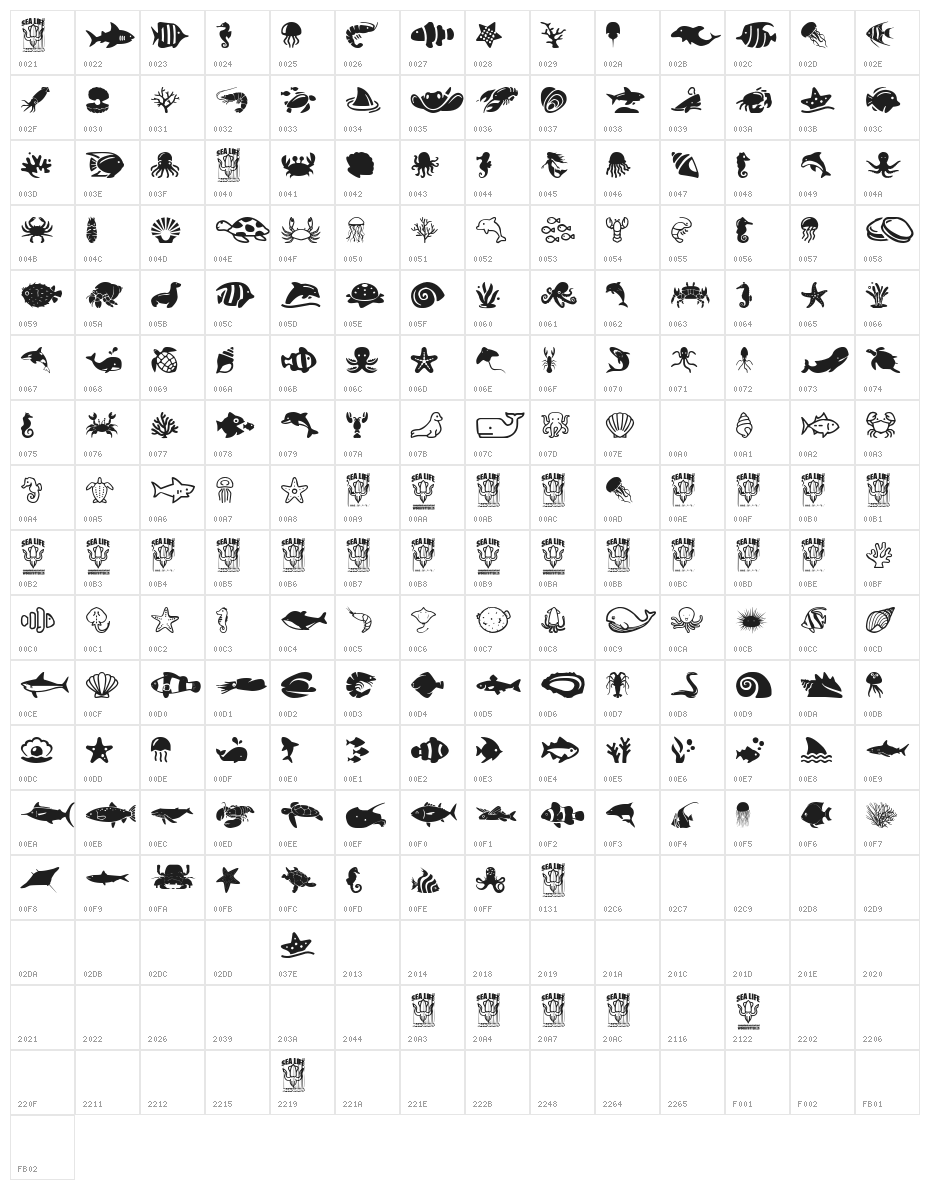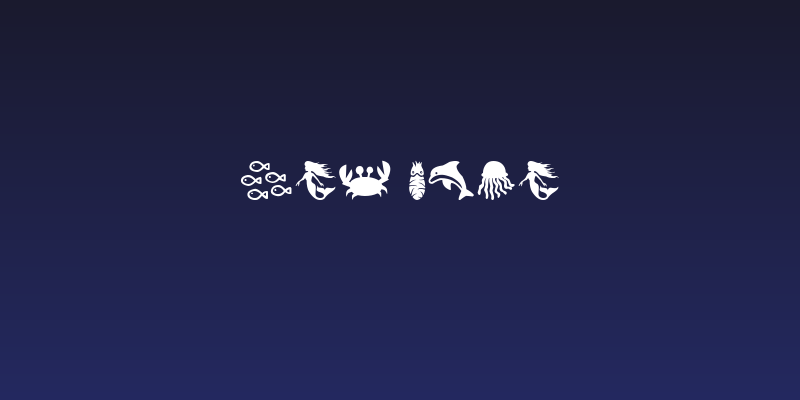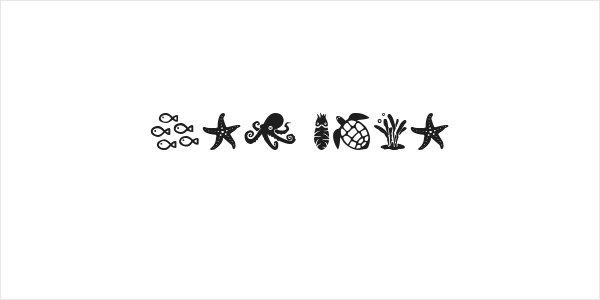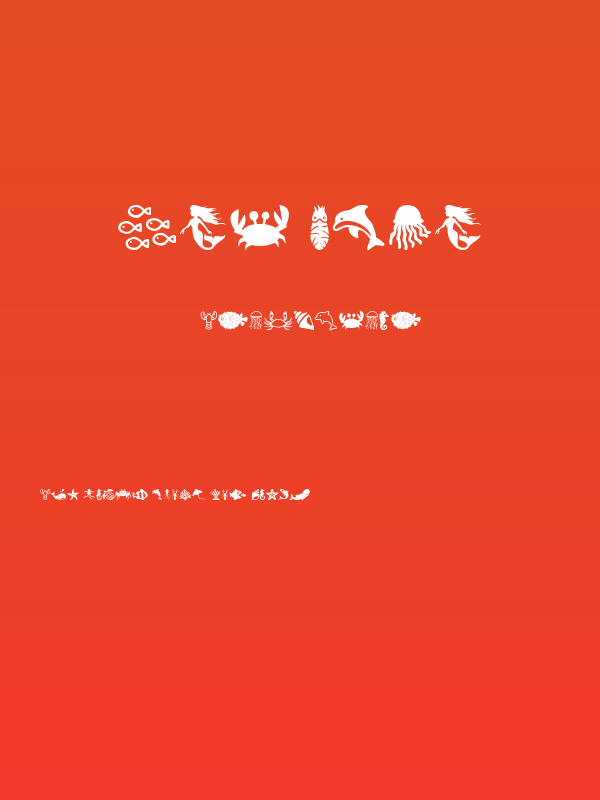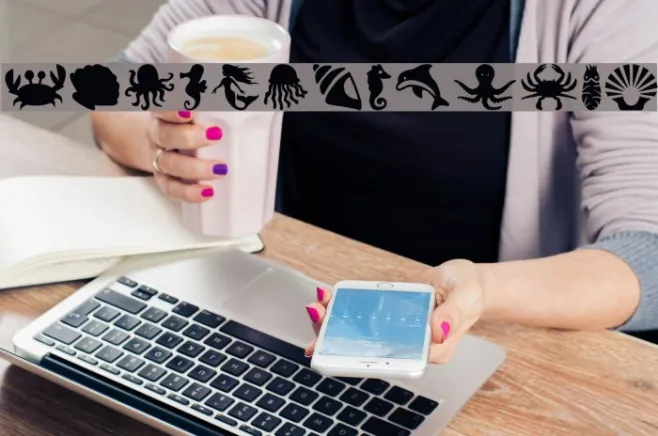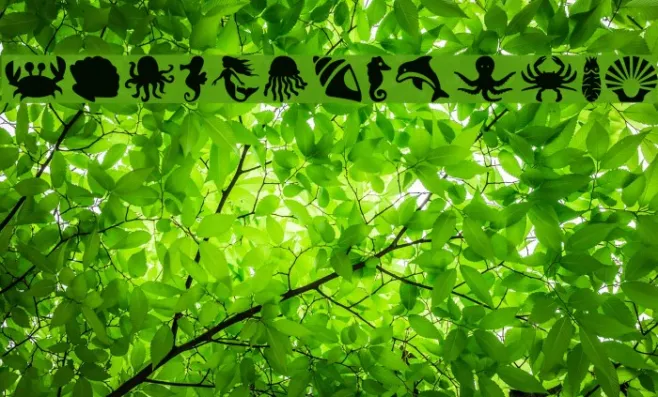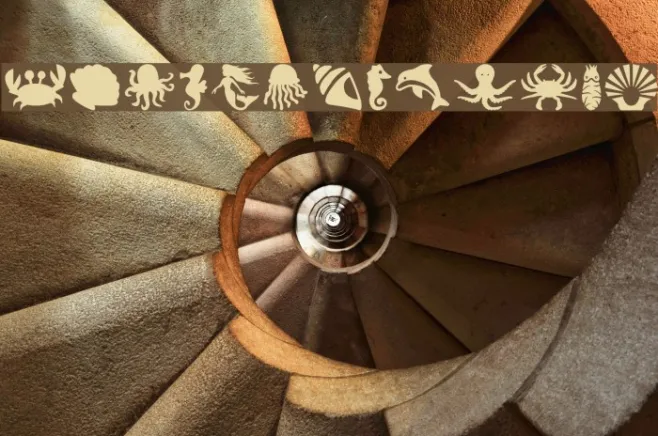
Sea Life Font
Sea Life Description
A playful and decorative dingbat font featuring a wide variety of sea life silhouettes, including fish, crustaceans, mollusks, marine mammals, and aquatic plants. Each character is represented by a unique, bold, and easily recognizable marine-themed icon, rendered in solid black with simple, clean lines and minimal detail.
| Overall Style | Decorative, Playful, Thematic |
| Use Case | Icons, Logos, Themed graphics, Decorative elements |
| Proposed Projects | Children's books, educational materials, aquarium signage, themed party invitations, scrapbooking, environmental awareness campaigns. |